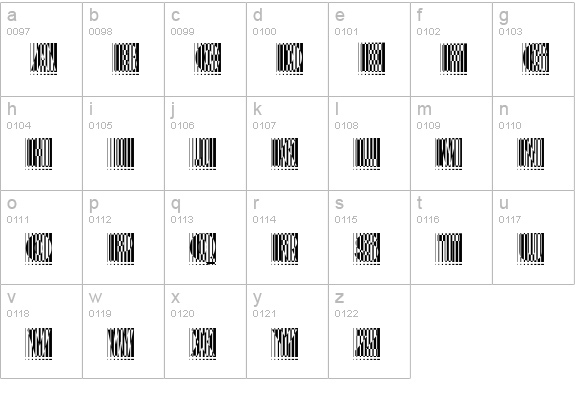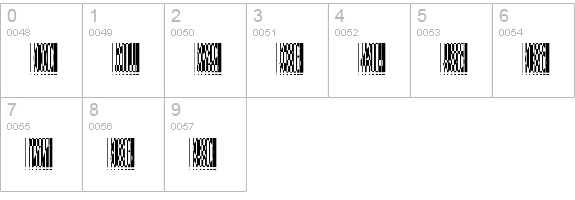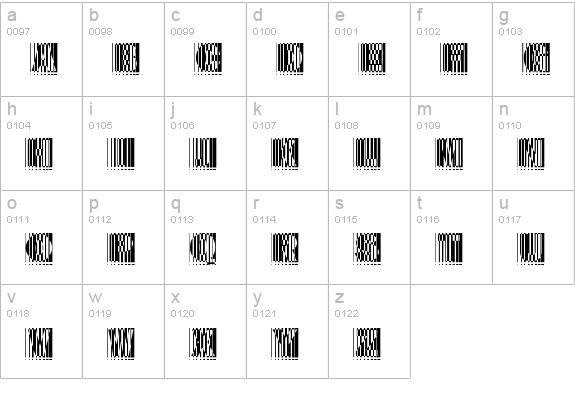
Arrgh! Font Details
Arrgh! font is a bold and adventurous typeface that exudes a sense of excitement and energy. With its playful and whimsical design, this font is perfect for adding a touch of fun to any project. The unique characters and dynamic letterforms make Arrgh! font stand out and grab the viewer's attention. Best of all, Arrgh! font is available for free download at FontsMarket.com. Whether you're working on a poster, branding, or any other creative project, this font will add a lively and dynamic element to your designs. Don't miss out on the opportunity to download this fantastic font and unleash your creativity!